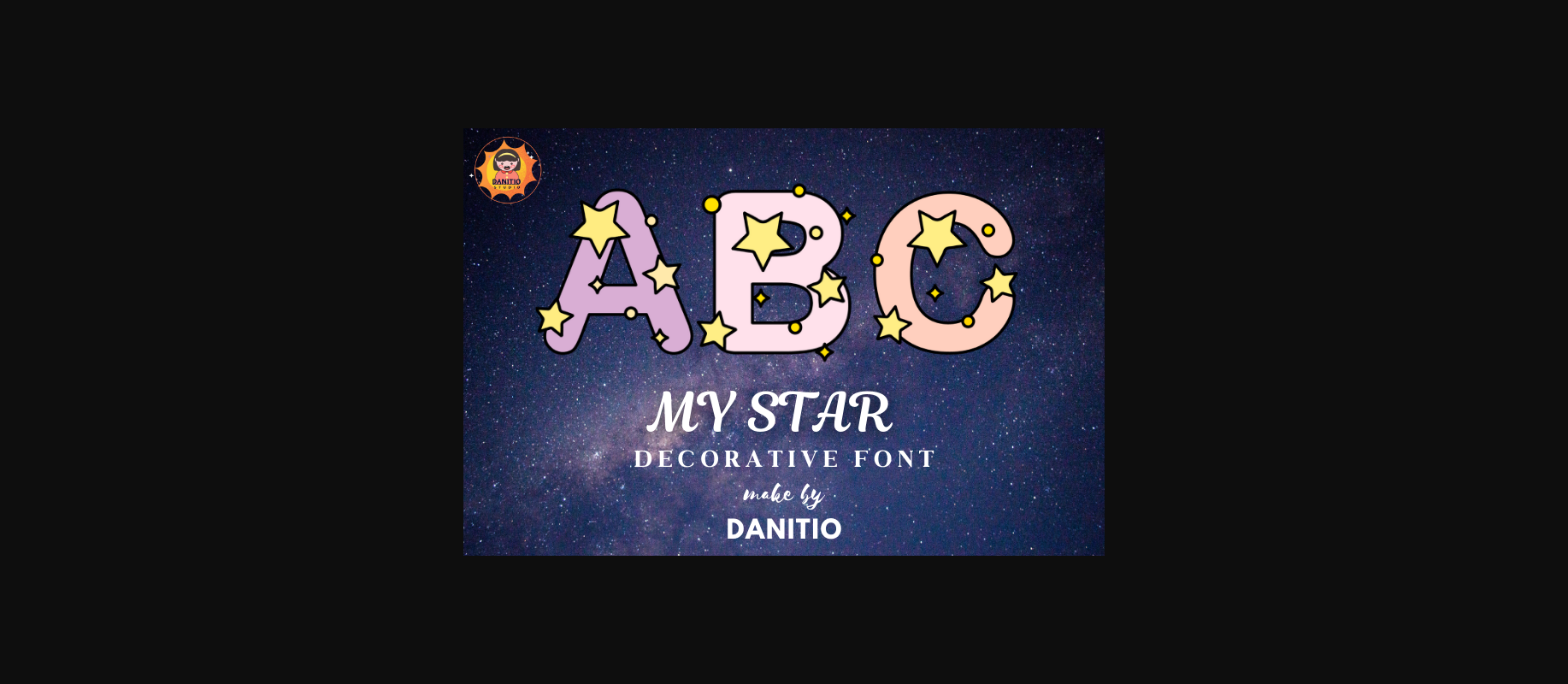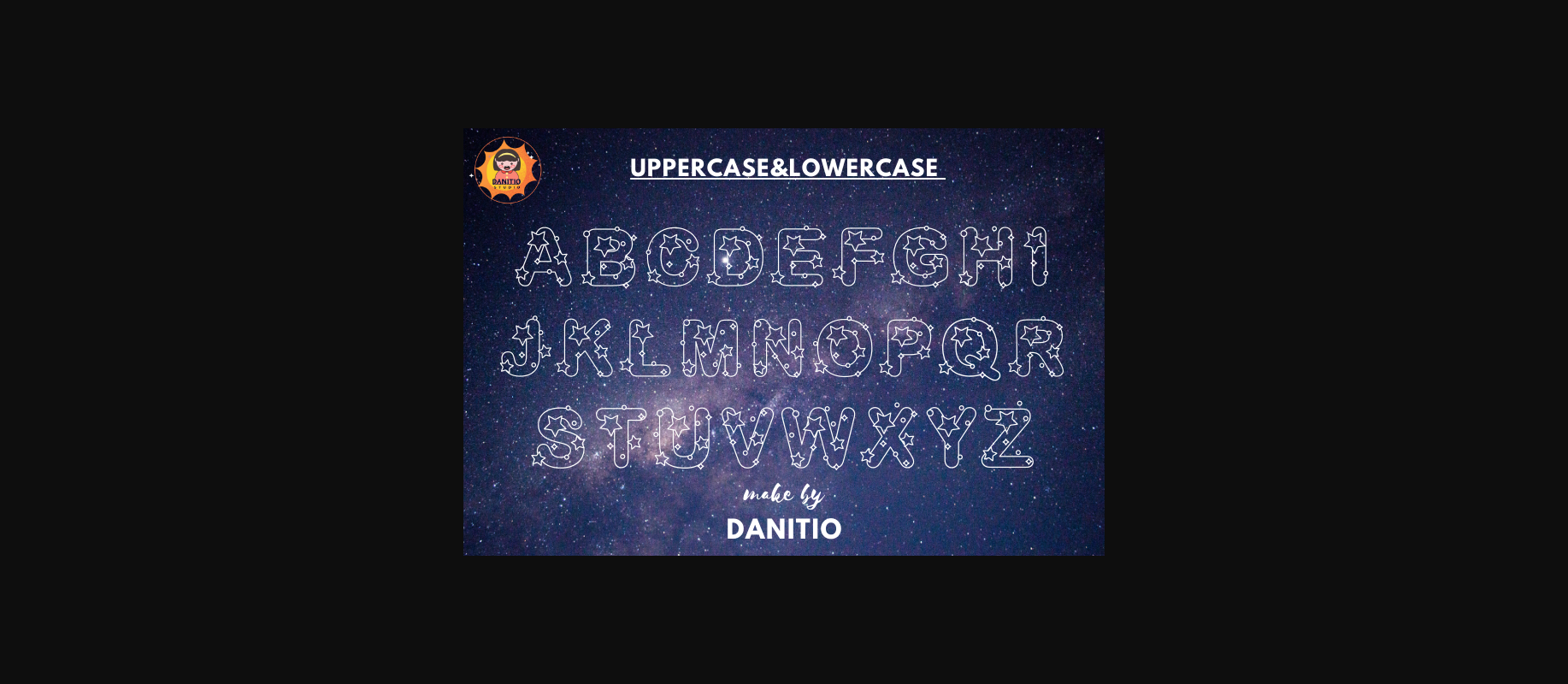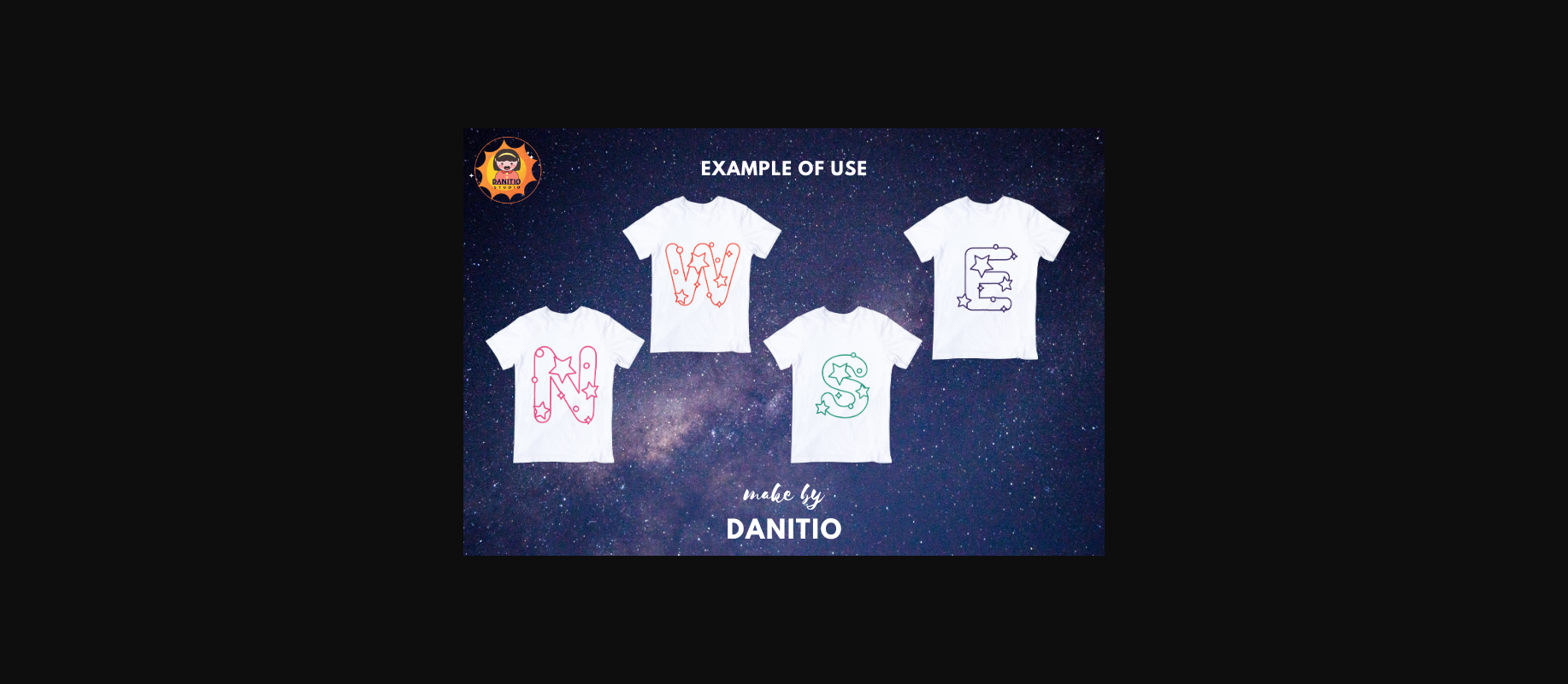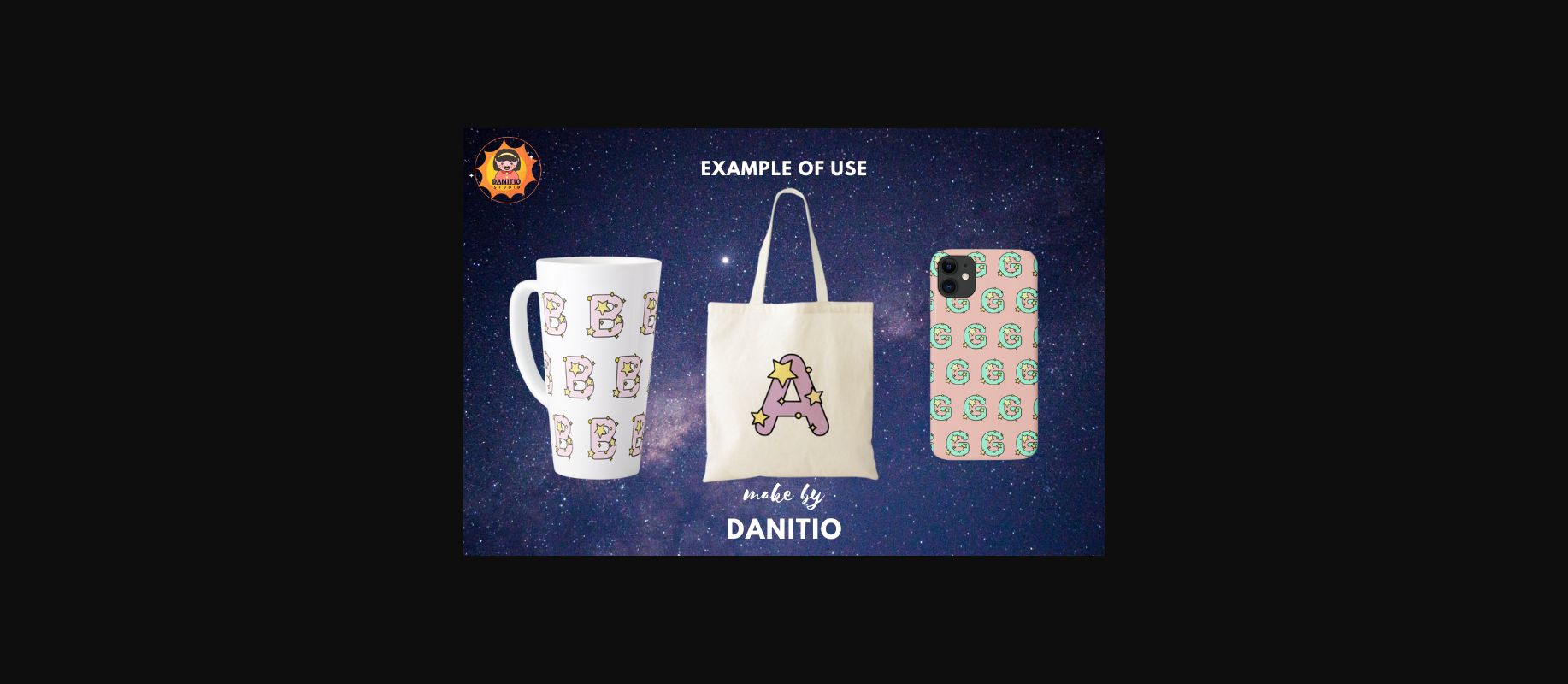
About My Stars Font
“My Stars Decorative” is a decorative font that adds uniqueness and charm to any design! With cute stars on the letters, This makes the font cuter and brings a sense of fun and magic to any creative project. From children’s books to greeting cards, posters and more, let your imagination shine with “My Stars Decorative” fonts.